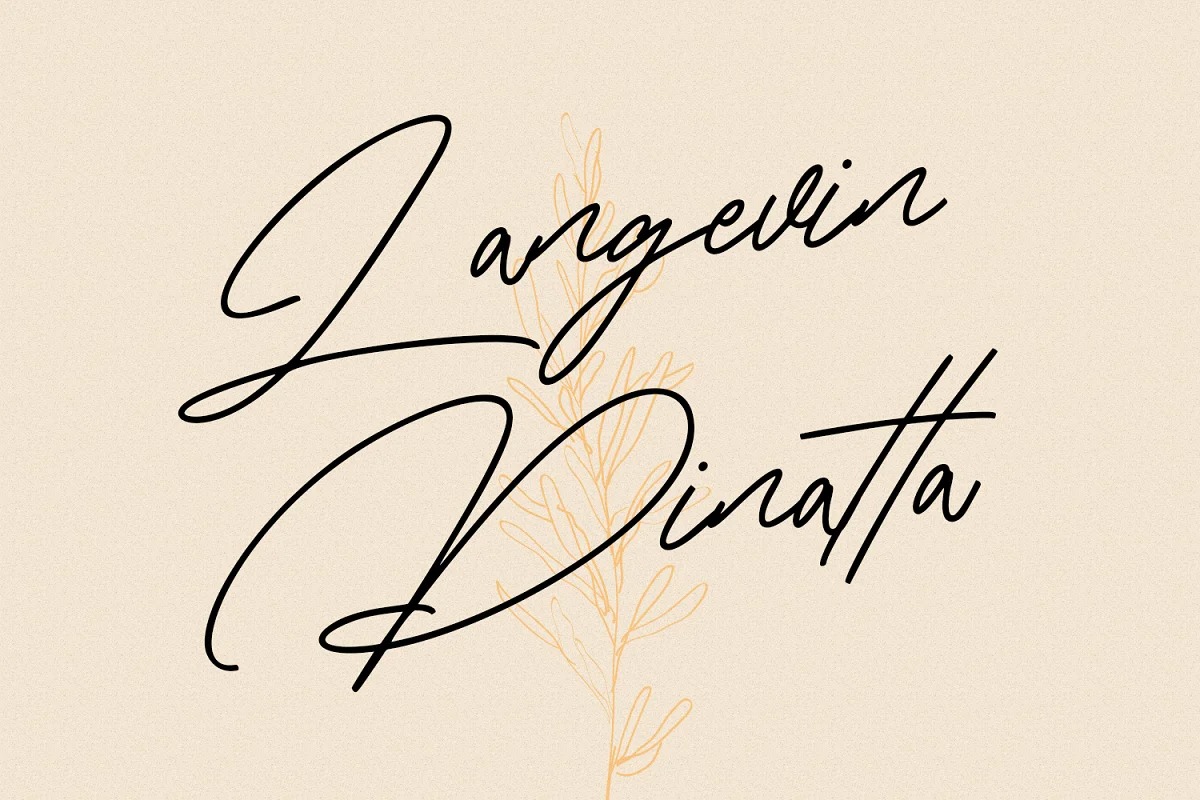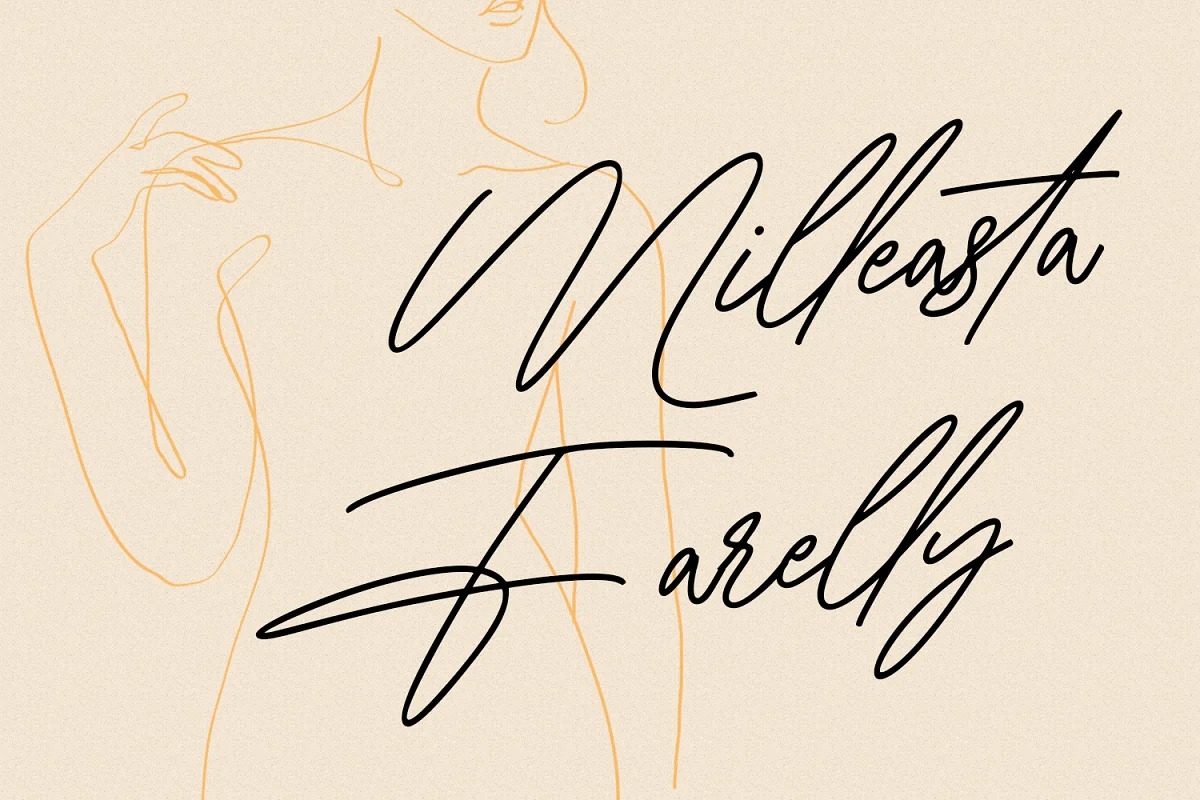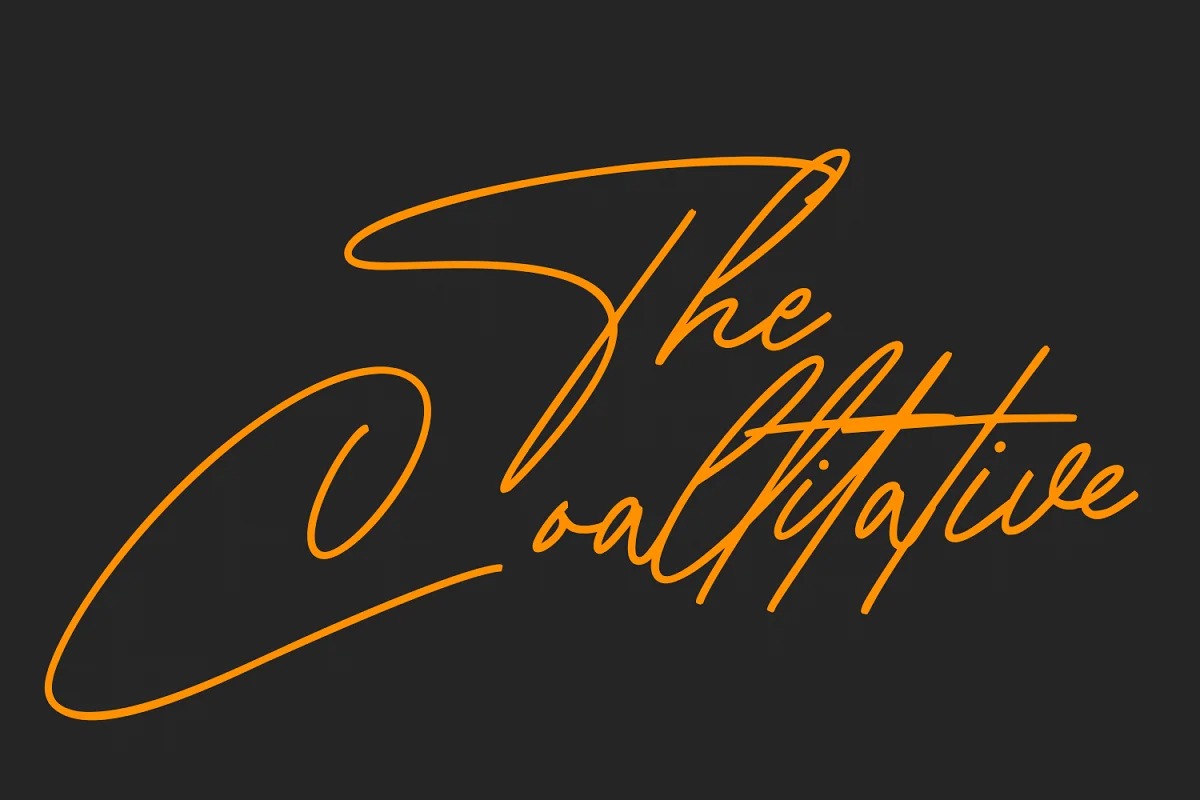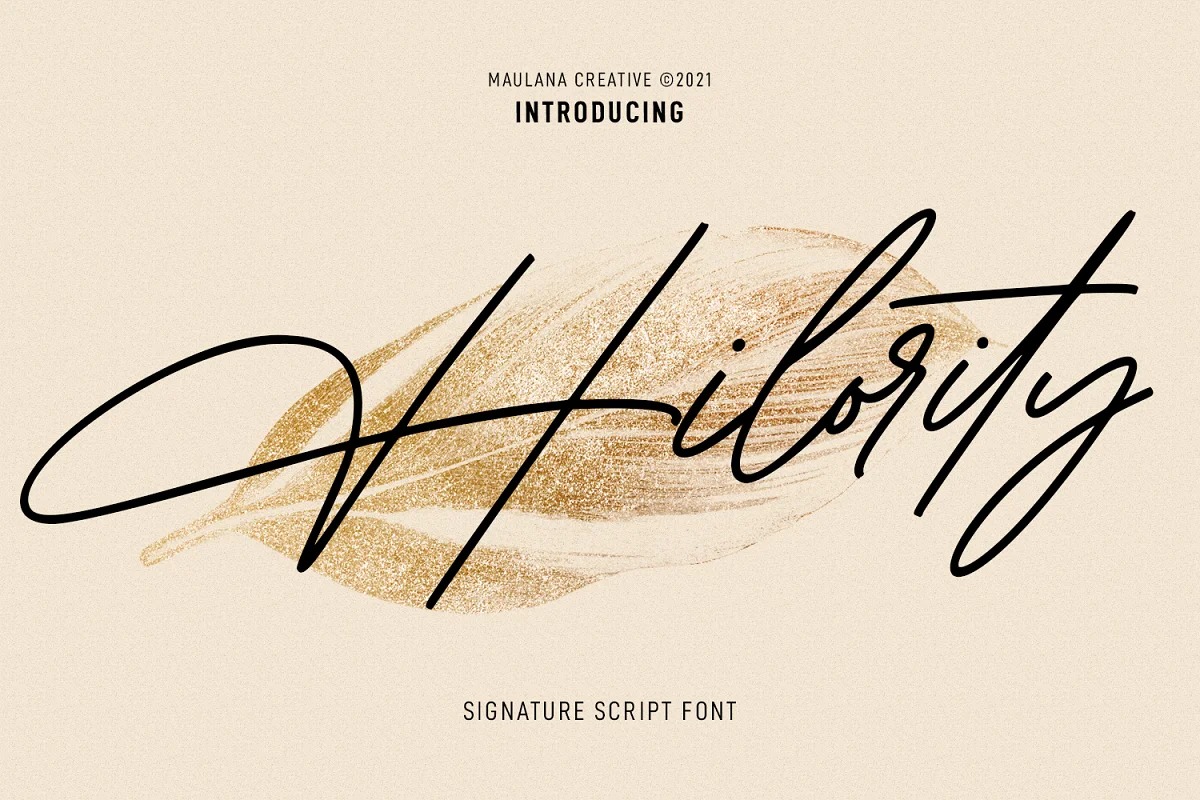
Hilority Font
Hilority Handwritten Font is a modern and awesome monoline font created by Maulana Creative with a natural style. To give you an extra creative work. Hilority font support multilingual more than 100+ language. This font is good for logo design, Social media, Movie Titles, Books Titles, a short text even a long text letter and good for your secondary text font with sans or serif. Make a stunning work with Hilority font.